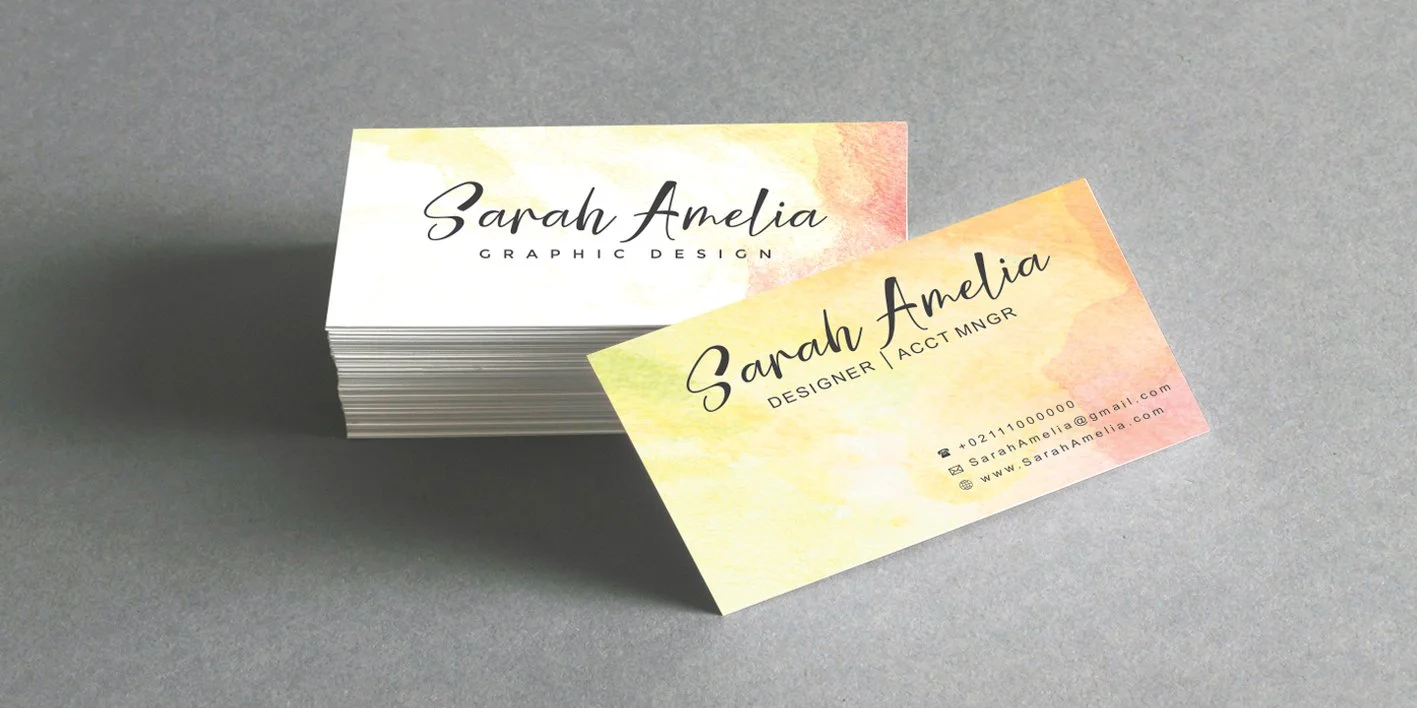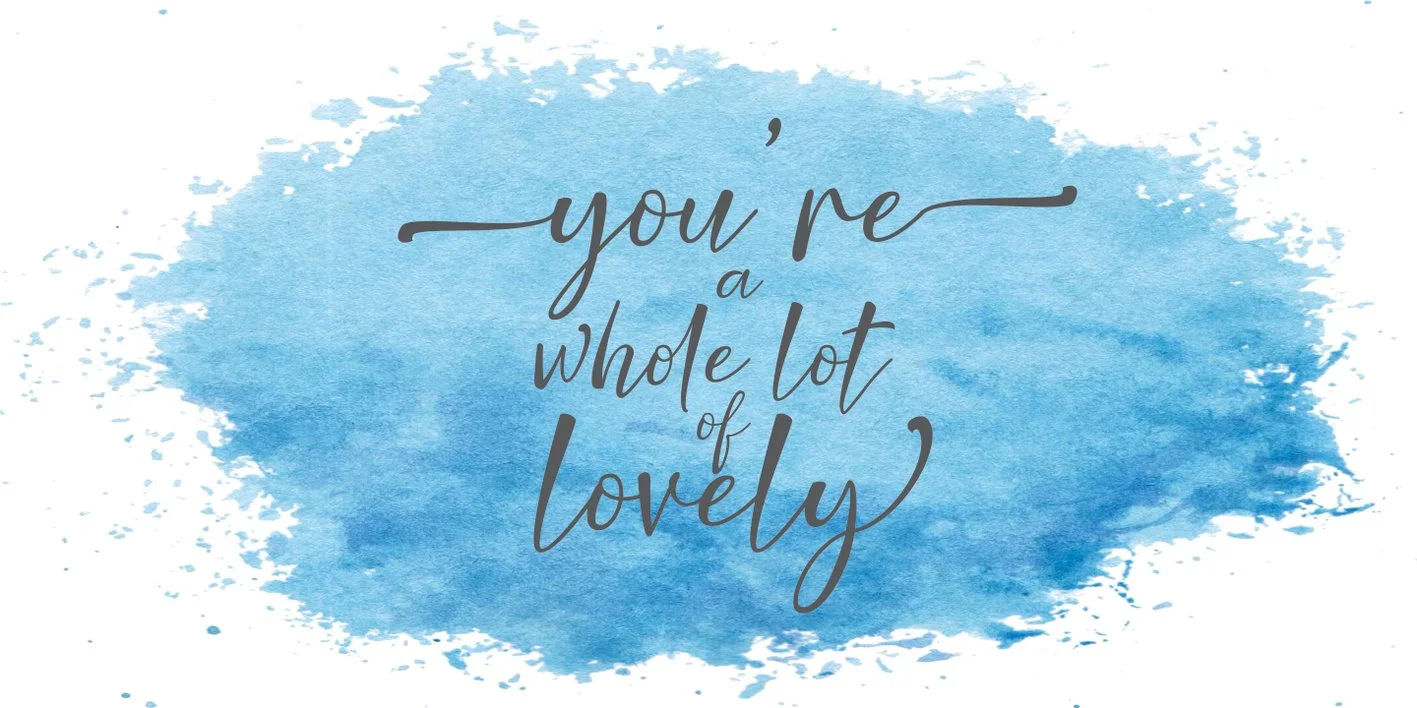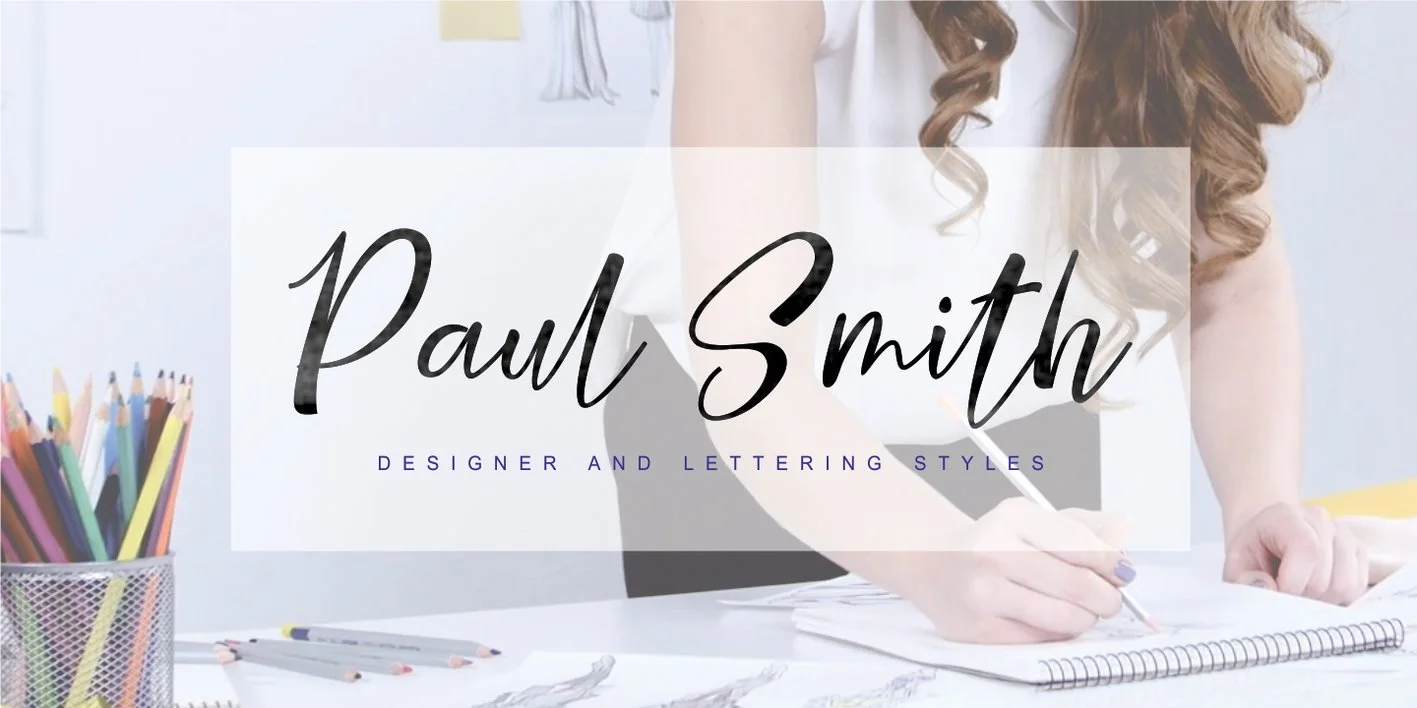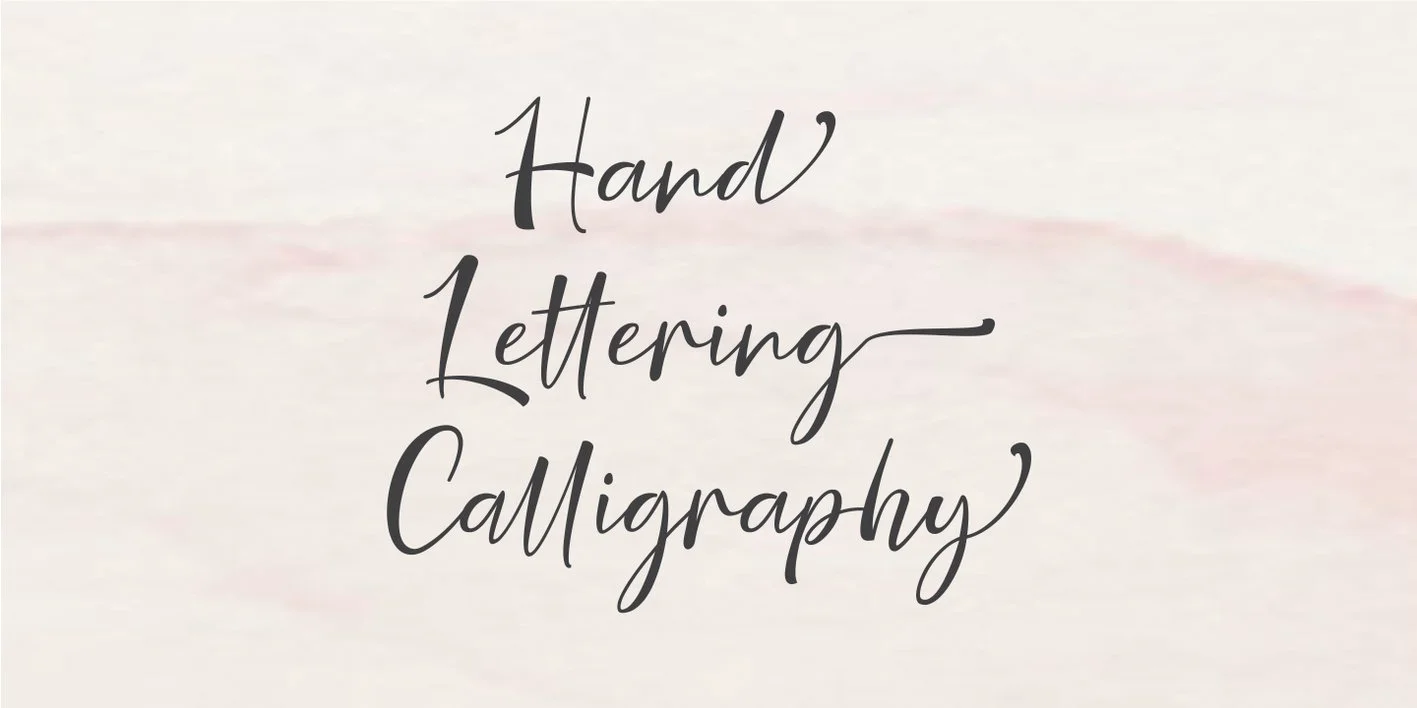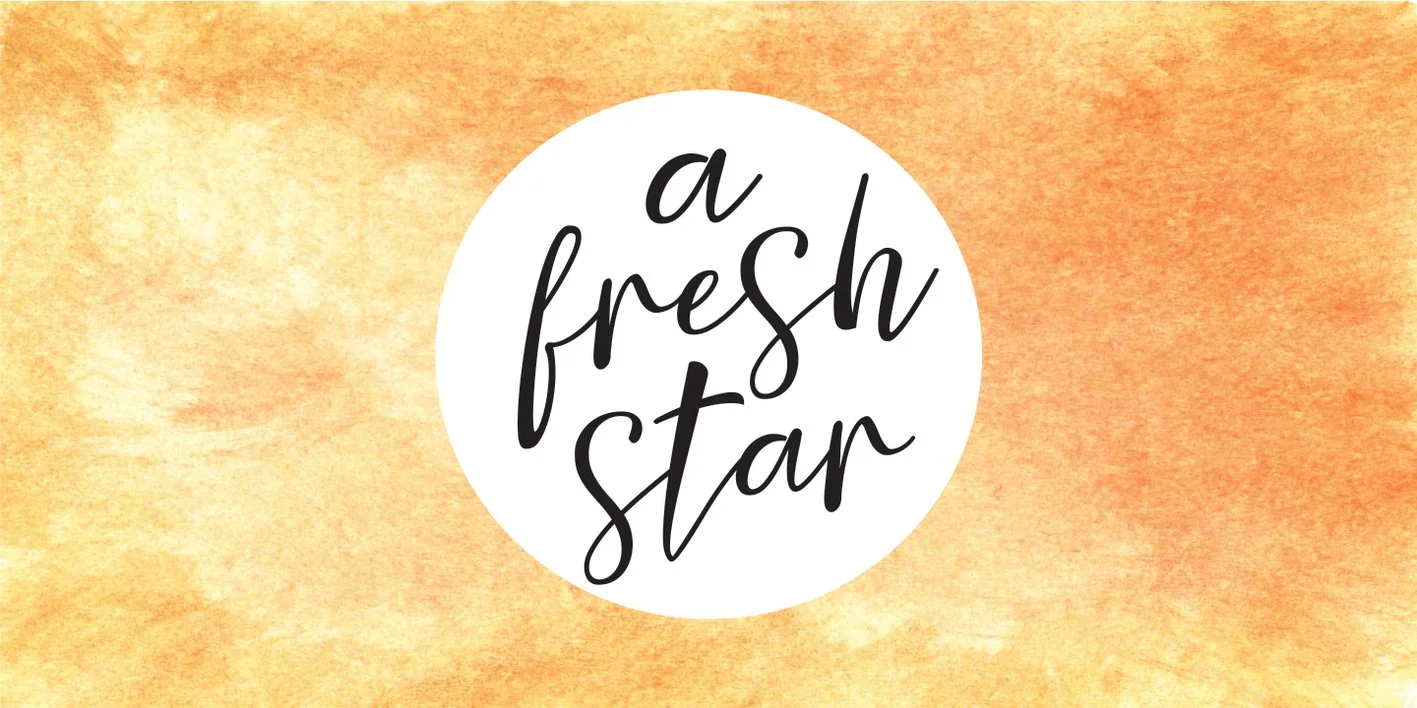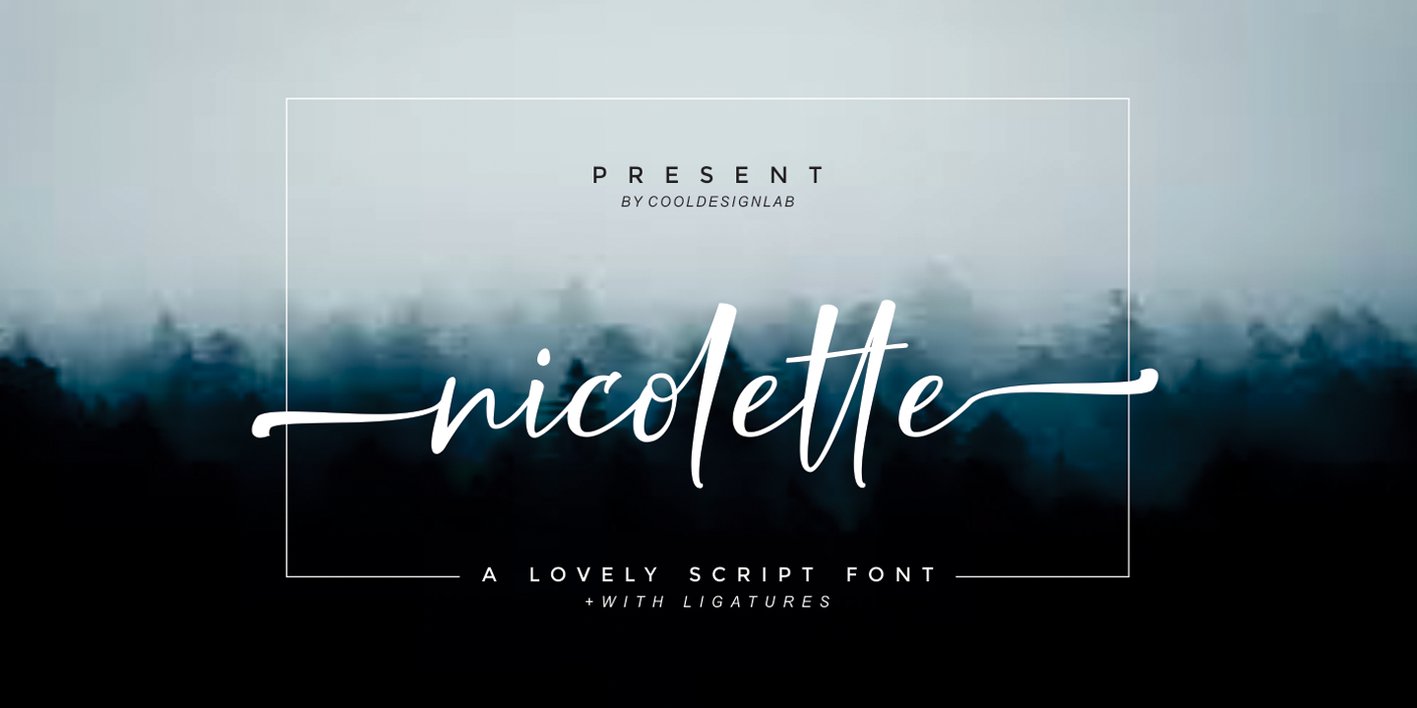
Nicolette Script Font
Nicolette is a handwritten script font that is given a modern touch and front and back swashes. Can be used for various purposes. Suitable for Branding, Happy New Year, Logos, Greeting Cards, Stationery, Weddings and Offers. Such as titles, signatures, wedding invitations, t-shirts, letterhead, signboards, labels, music titles, news, posters, badges etc. if you want to use it for your work, this font can be used easily and simply because there are many features in it to load a lower complete set of letters and include initial letters and terminals, alternatives, binding and support for many languages. File included: Nicolette. otf To activate the OpenType Stylistic alternative, you need a program that supports the OpenType feature such as Adobe Illustrator CS, Adobe Indesign & CorelDraw X6-X7, Microsoft Word 2010 or a newer version And this Font has provided a PUA key code (special letters coded). There are additional ways to access alternatives / swash, using Character Map (Windows), Nexus Fonts (Windows), Font Books (Mac) or software programs like PopChar (for Windows and Mac). If you need help or advice, please contact me via email ""